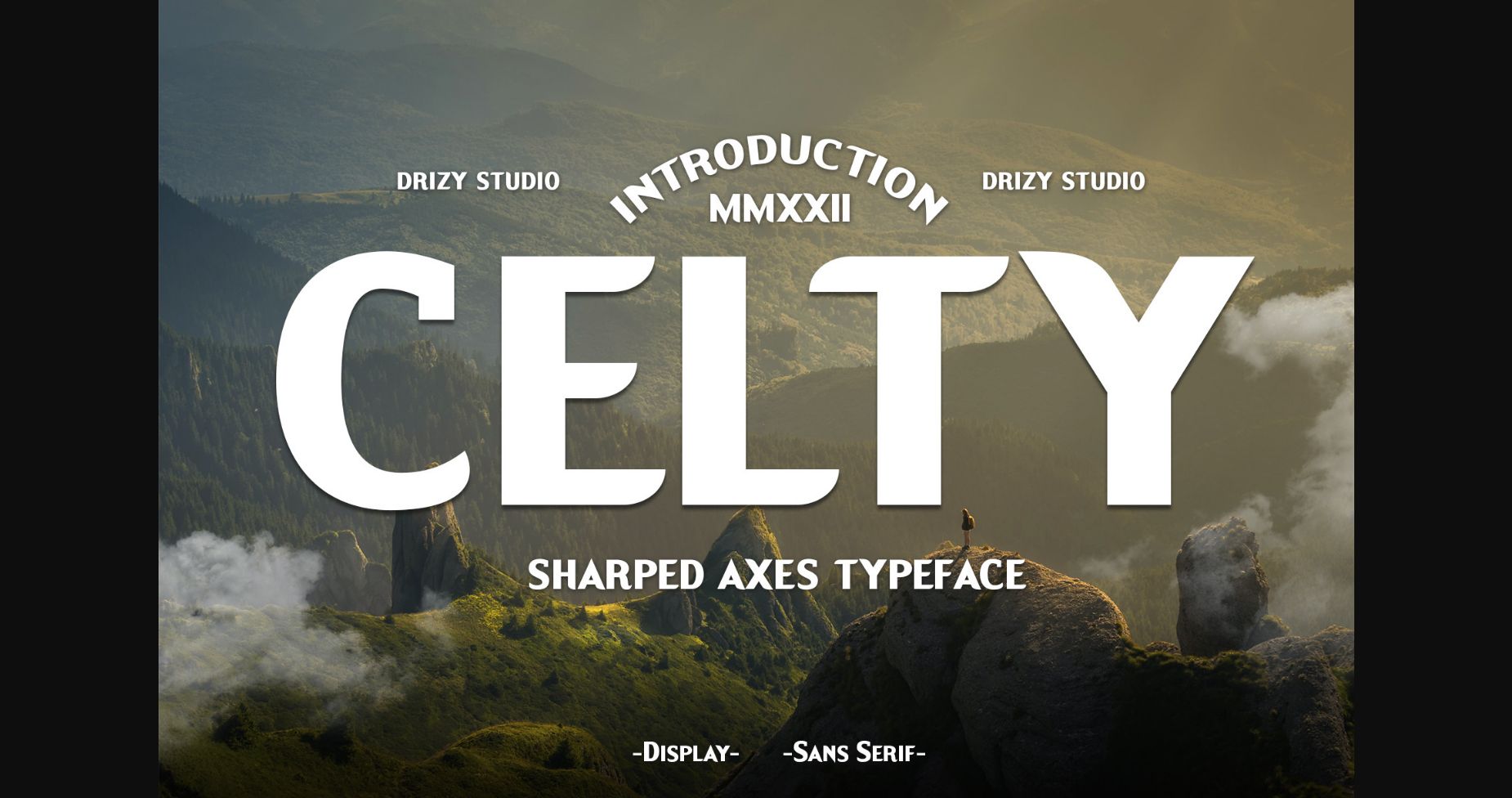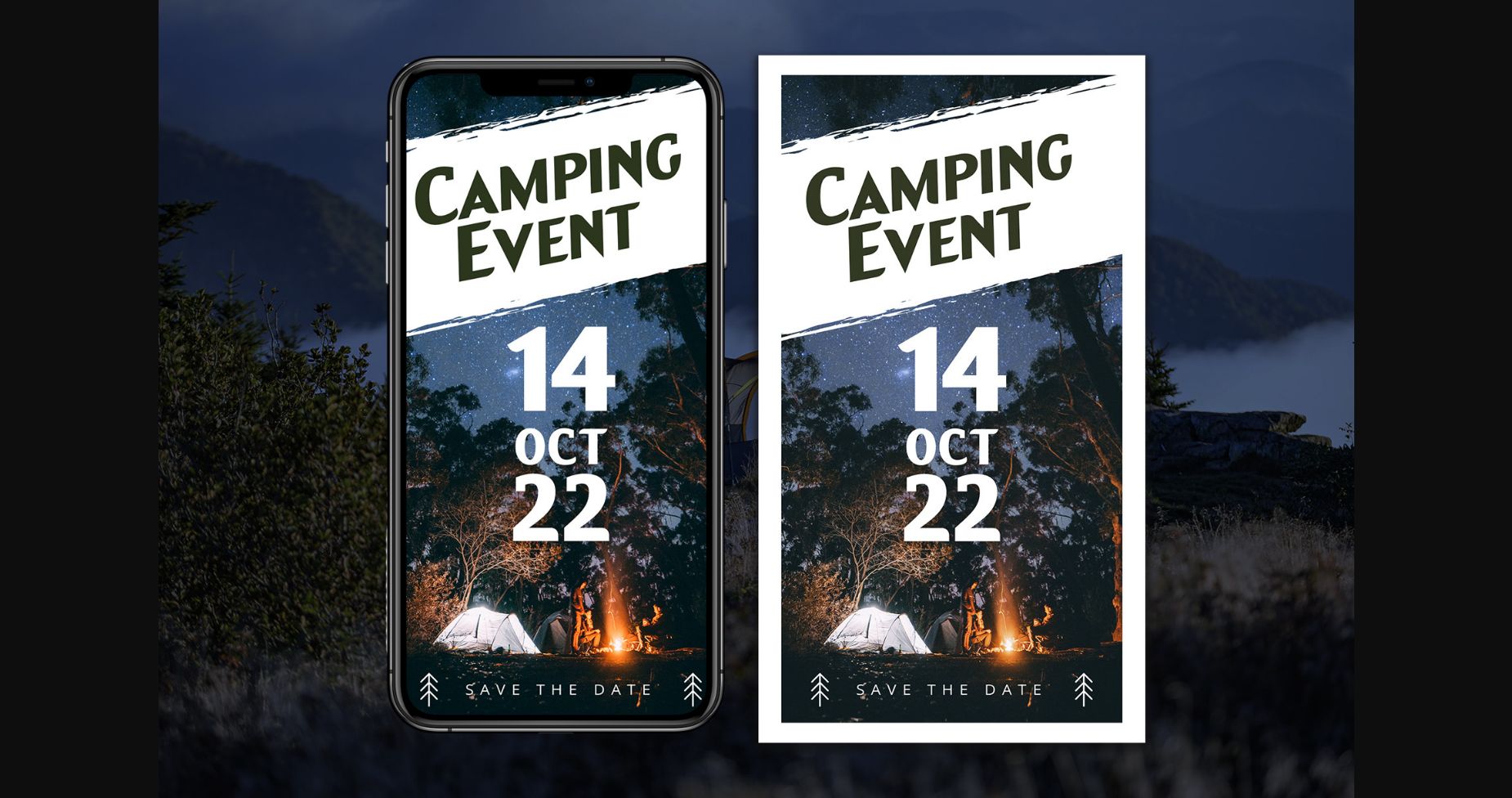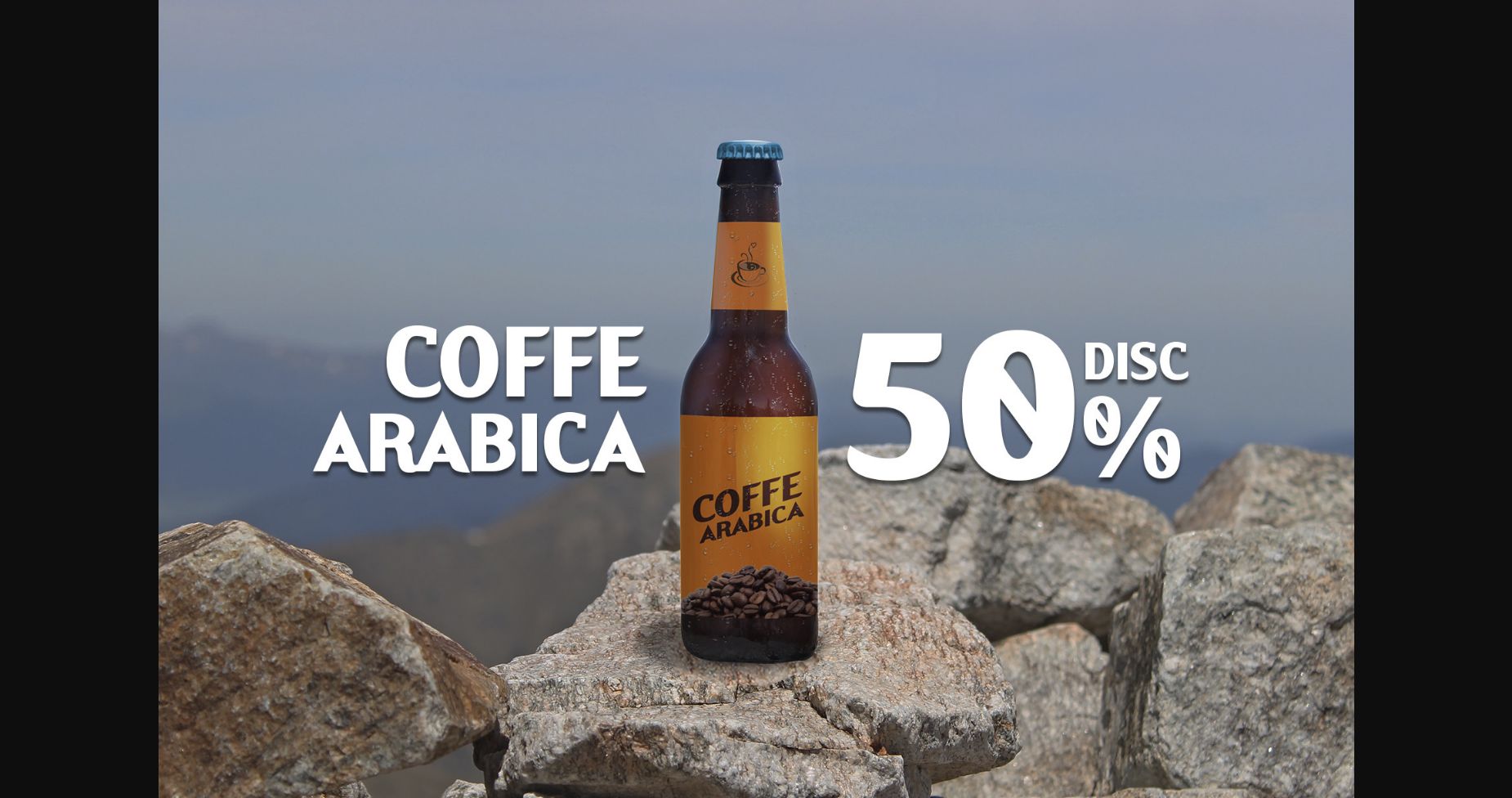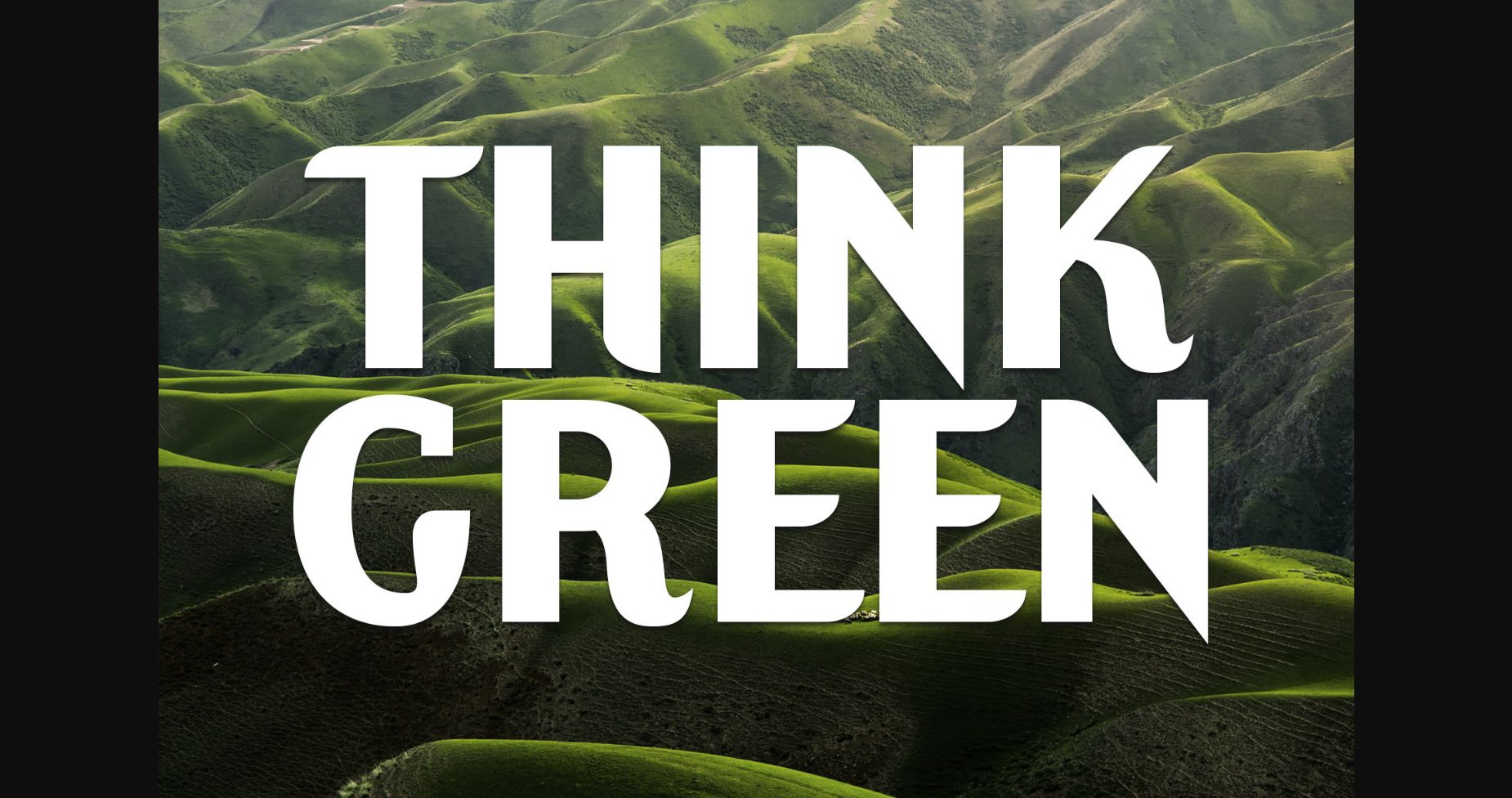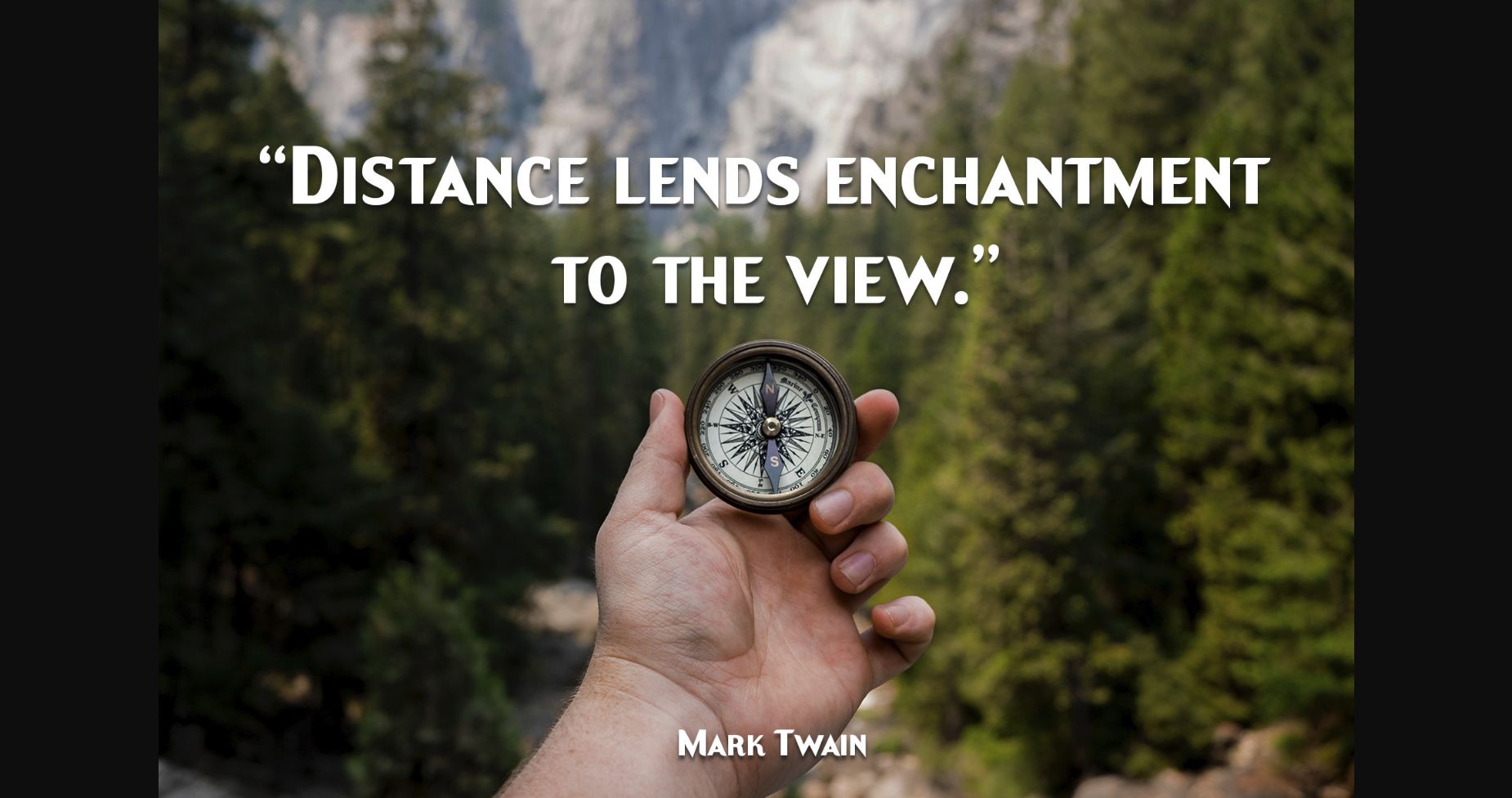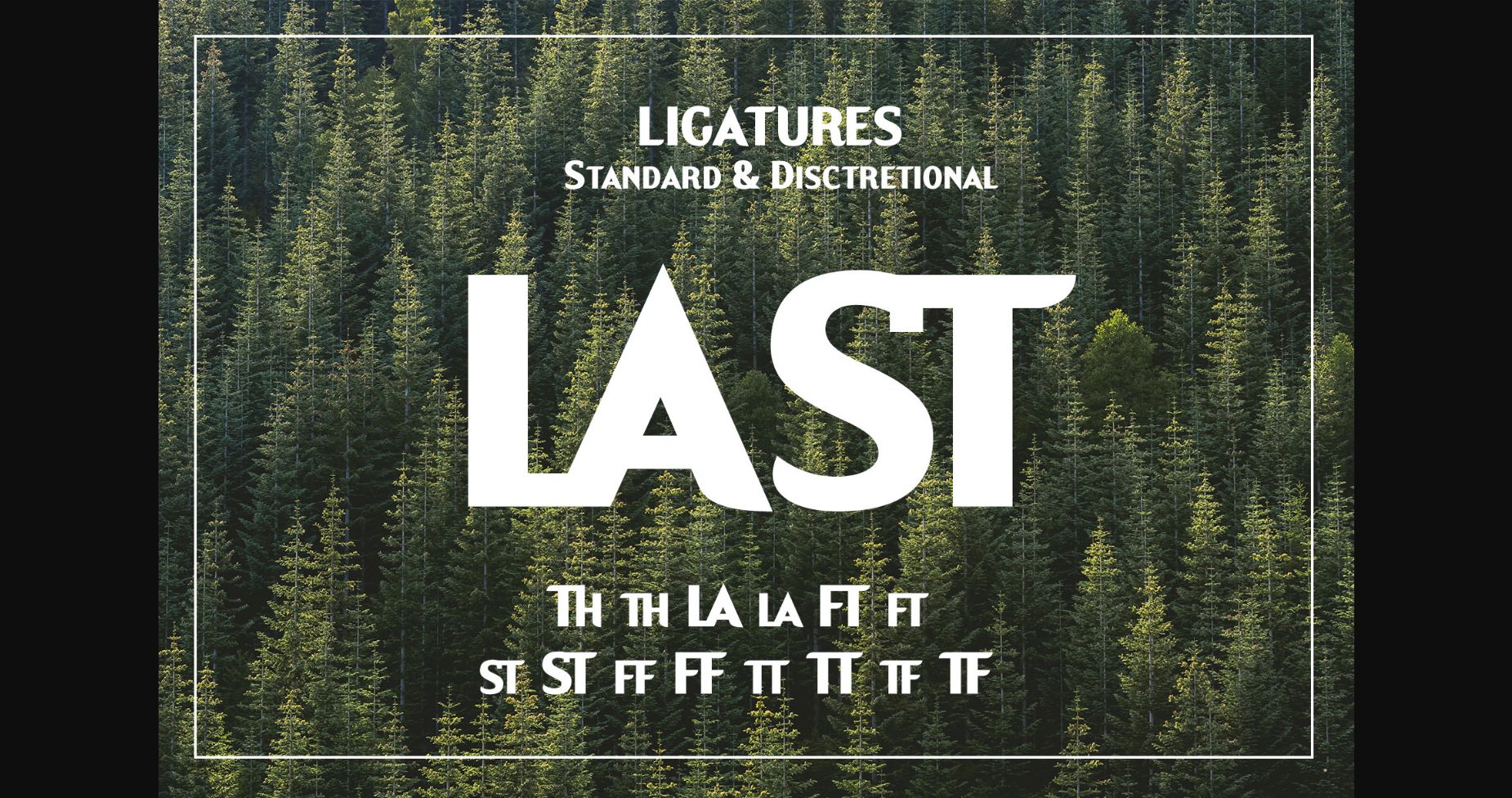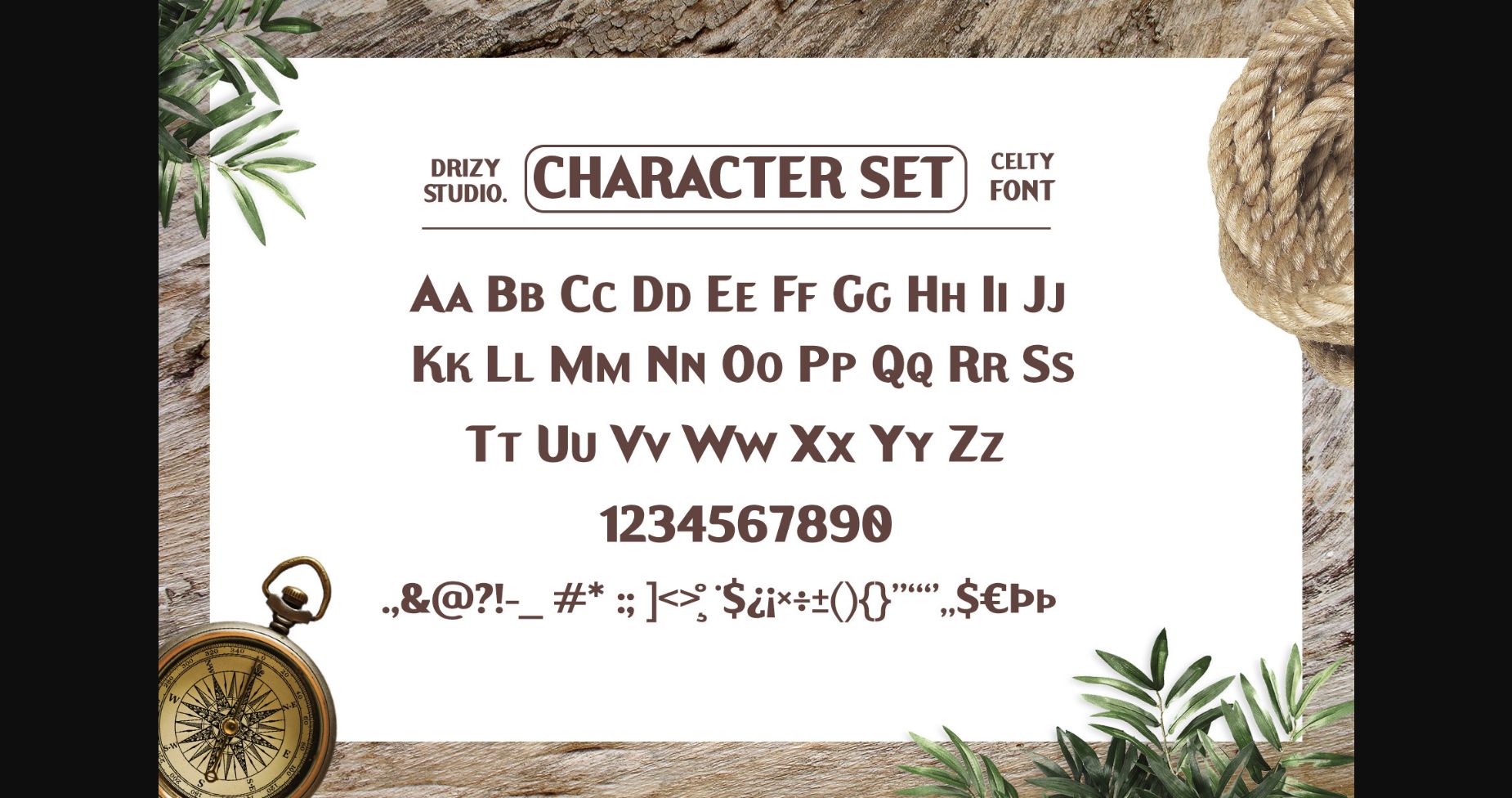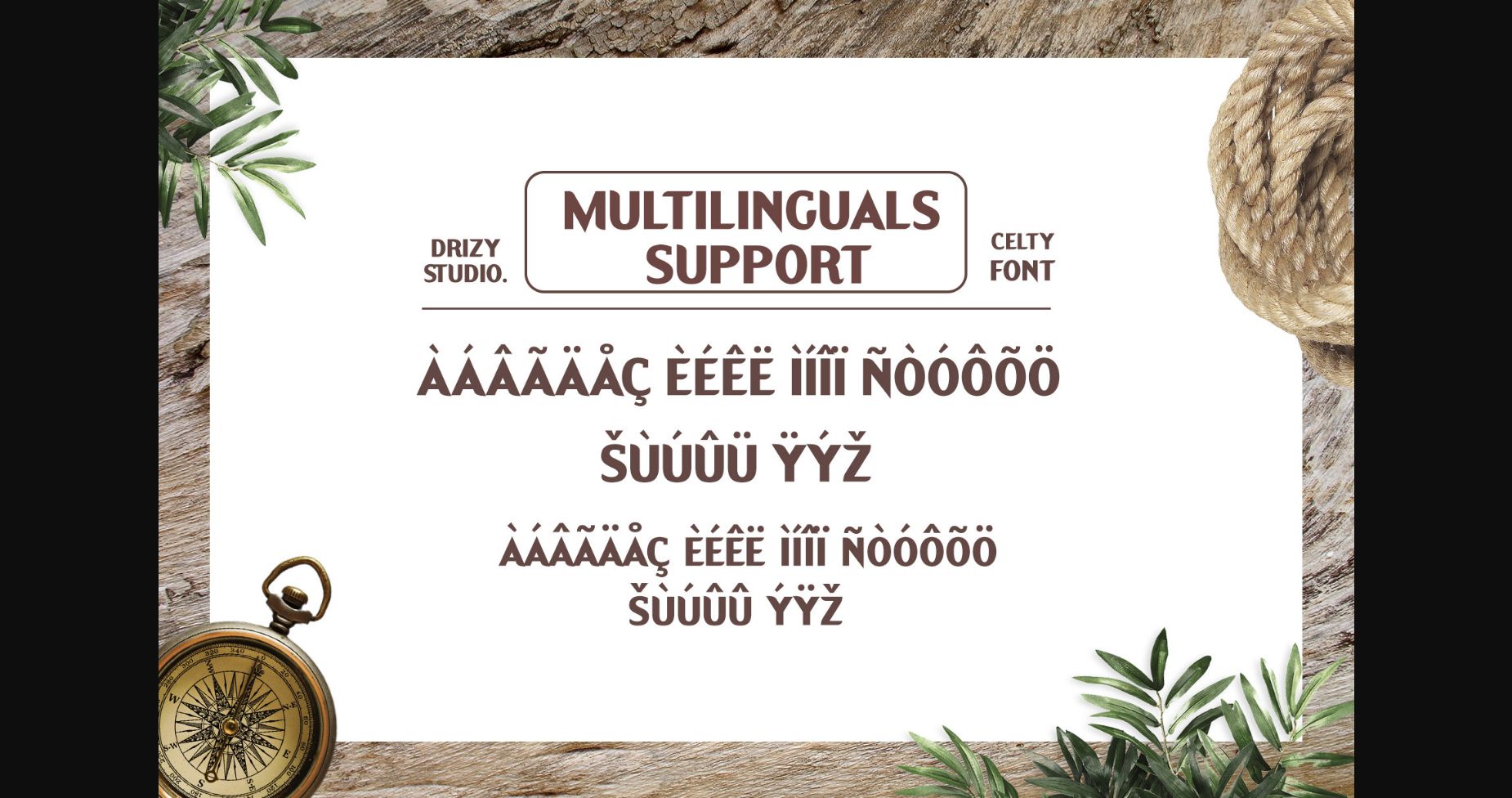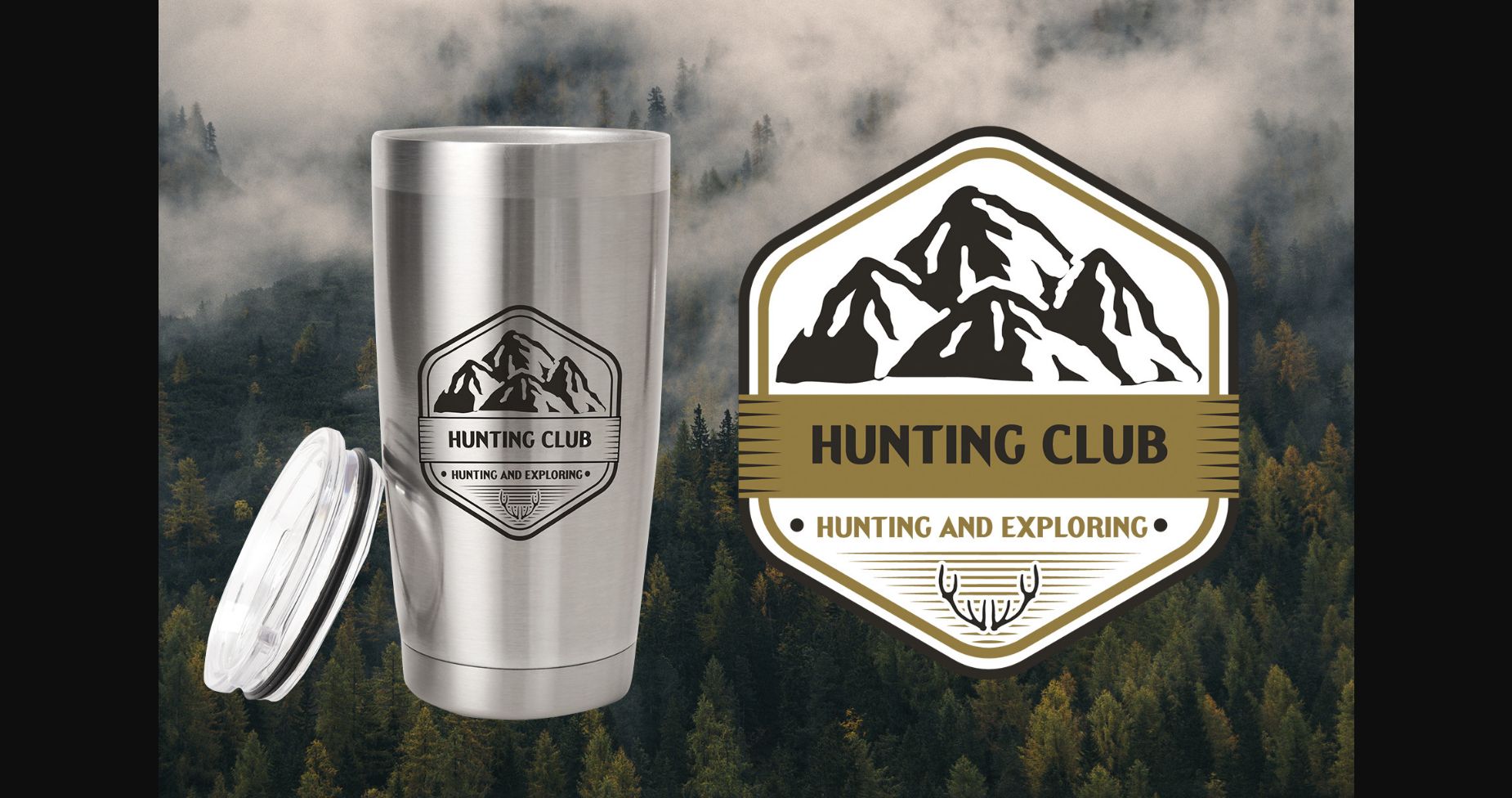
Celty is a modern sans serif with a geometric touch. Simple but with a strong visual effect, this font will instantly make your creation more appealing than any others.